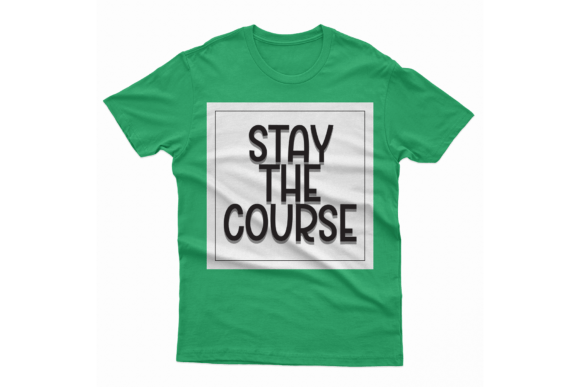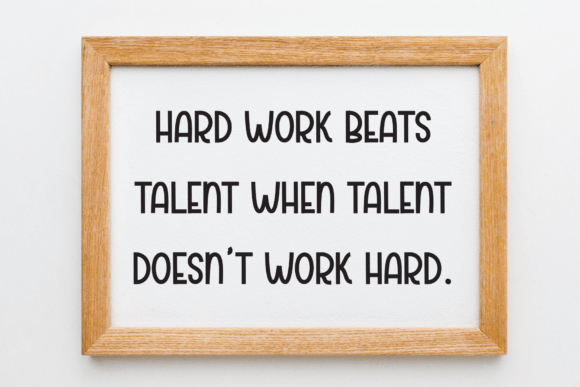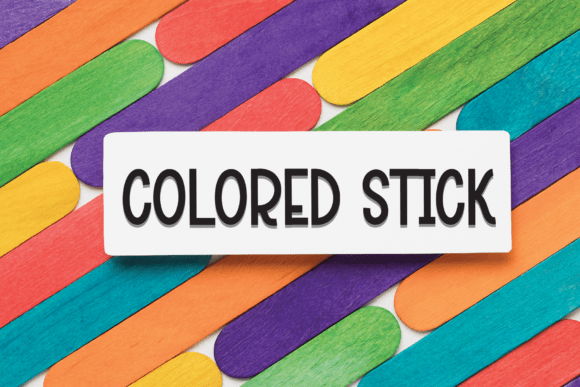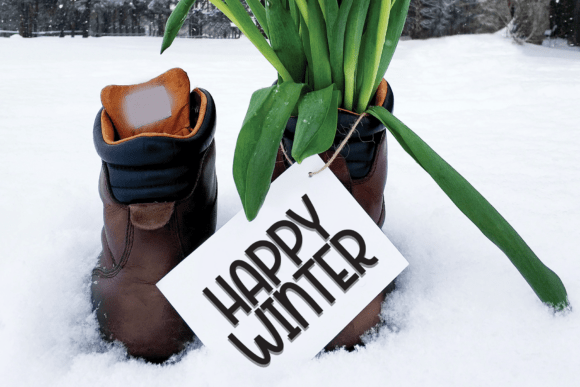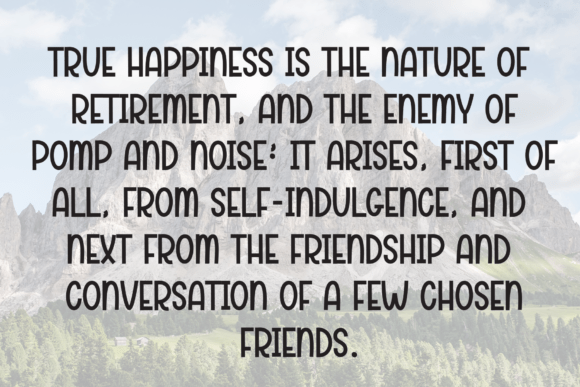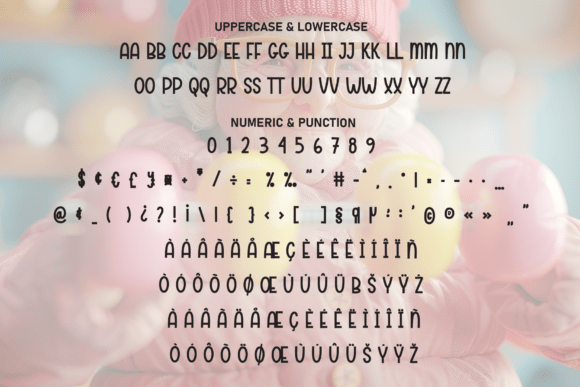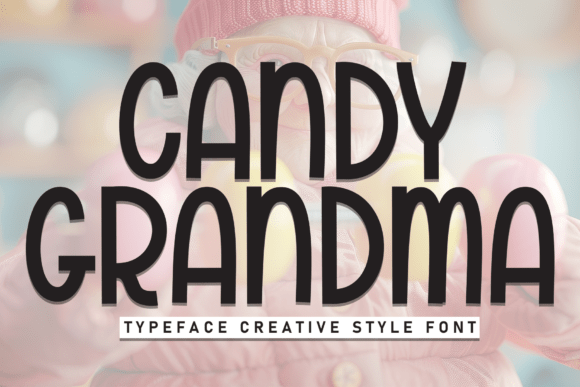
Candy Grandma Font: The Sweetest Addition to Your Design Collection
Are you tired of using the same old fonts in your designs? Do you want to add a touch of whimsy and fun to your projects? Look no further than the Candy Grandma Font! This playful font is bursting with creativity and is perfect for designers and crafters who want to add a lighthearted and cheerful vibe to their work.
The Charm of Candy Grandma Font
The Candy Grandma Font is a hand-drawn font that features bouncy letterforms and a charming, playful style. It’s the perfect font for kids’ projects, party invites, logos, packaging, and anything that calls for a fun and imaginative approach. With its unique and quirky design, this font is sure to make your designs stand out from the crowd.
Whether you’re a designer, crafter, or DIY enthusiast, the Candy Grandma Font is a great addition to your toolkit. Its versatility and playfulness make it perfect for a wide range of projects, from digital designs to handmade crafts. Use it to create:
- Kids’ party invitations and decorations
- Fun and colorful logos and branding materials
- Creative packaging and labeling
- Handmade cards and gift tags
- Whimsical wall art and decor
Why Choose Candy Grandma Font?
So why choose the Candy Grandma Font over other fonts? Here are just a few reasons:
- Unique and playful design: The Candy Grandma Font features a one-of-a-kind design that’s sure to add a touch of fun and whimsy to your projects.
- Hand-drawn charm: The font’s hand-drawn style gives it a personal and charming feel that’s perfect for designers and crafters who want to add a human touch to their work.
- Versatile: The Candy Grandma Font is perfect for a wide range of projects, from digital designs to handmade crafts.
Tips for Using Candy Grandma Font
Here are a few tips for getting the most out of the Candy Grandma Font:
- Experiment with colors: The Candy Grandma Font looks great in bright, bold colors. Try experimenting with different color combinations to add an extra touch of fun to your designs.
- Mix and match: Don’t be afraid to mix and match the Candy Grandma Font with other fonts and design elements. This can help create a unique and eye-catching design.
- Use it sparingly: While the Candy Grandma Font is perfect for adding a touch of fun to your designs, it’s best used sparingly. Try using it as an accent font to add a pop of color and interest to your work.
The Candy Grandma Font is a fun and playful font that’s perfect for designers and crafters who want to add a lighthearted and cheerful vibe to their work. With its unique and quirky design, this font is sure to make your designs stand out from the crowd. So why not give it a try? Let your designs radiate joy and imagination with the Candy Grandma Font!